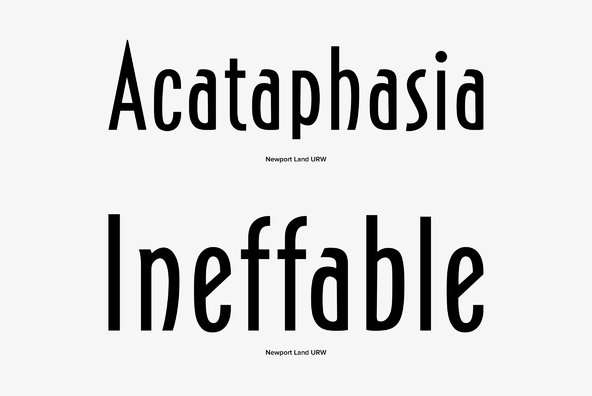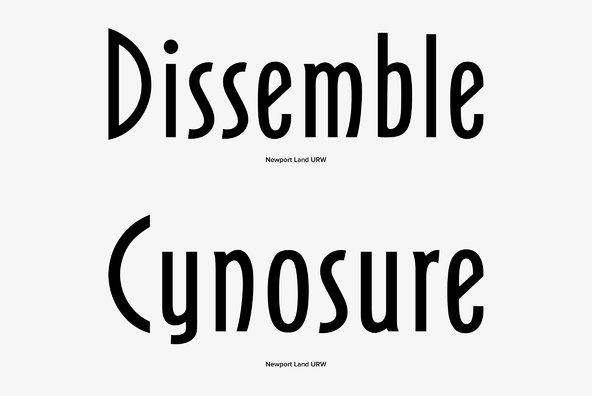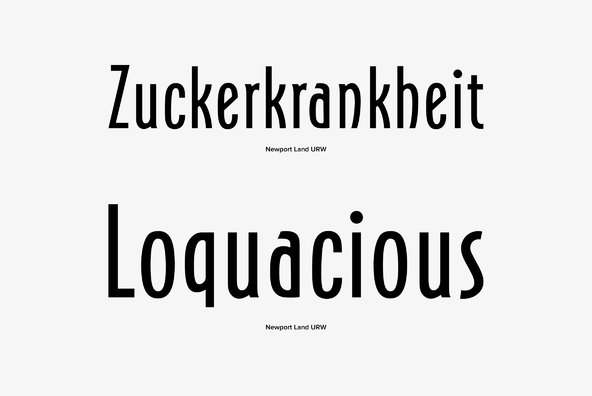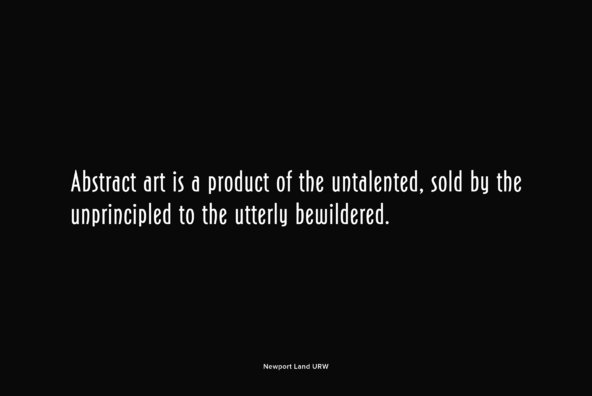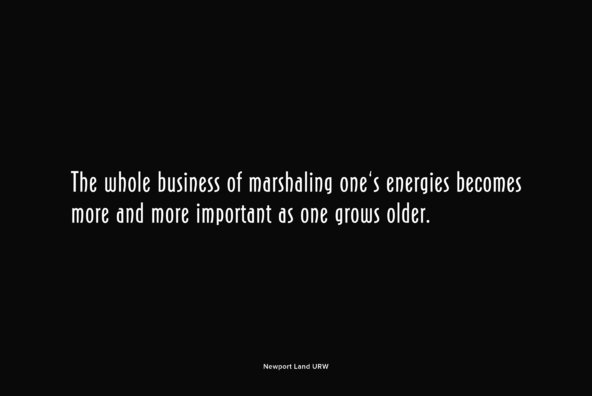
Designed by William T. Sniffin in 1932, Newport Land is a retro sans design released by the German type house URW. Newport Land has a very art deco, early 1900s feel to its letter designs, works great in various styles of projects.